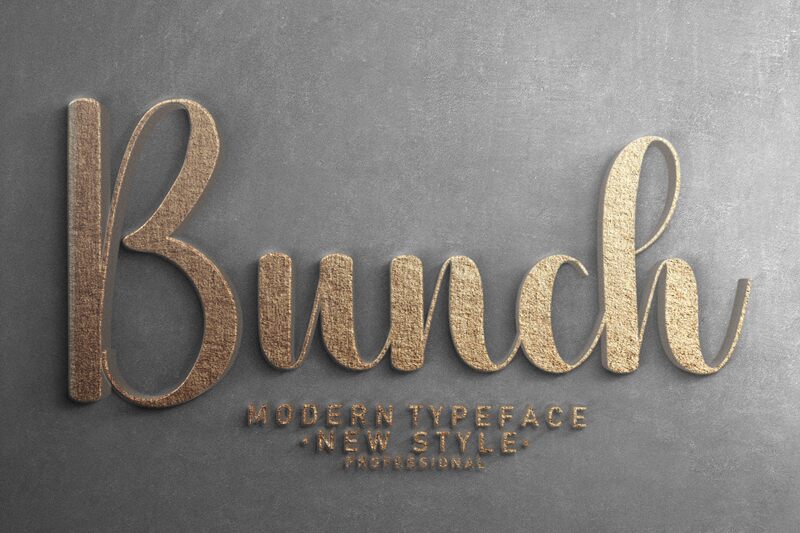
Bunch
Bunch font, designed by Scratchones, embodies the elegance of calligraphy with its whimsical and flowing strokes. This font captivates with its light form, creating an airy and graceful appearance that dances across the page. The exaggerated curves and playful loops draw the eye, adding a sense of personality and charm.
Its aesthetic appeal makes it ideal for a variety of design contexts-from wedding invitations to branding projects seeking a touch of sophistication. Bunch's unique flair ensures it stands out in both digital and print applications, giving voice to creativity while maintaining readability. Whether used in headlines or decorative elements, this font infuses any project with warmth and artistry, making it an excellent choice for those looking to leave a lasting impression.